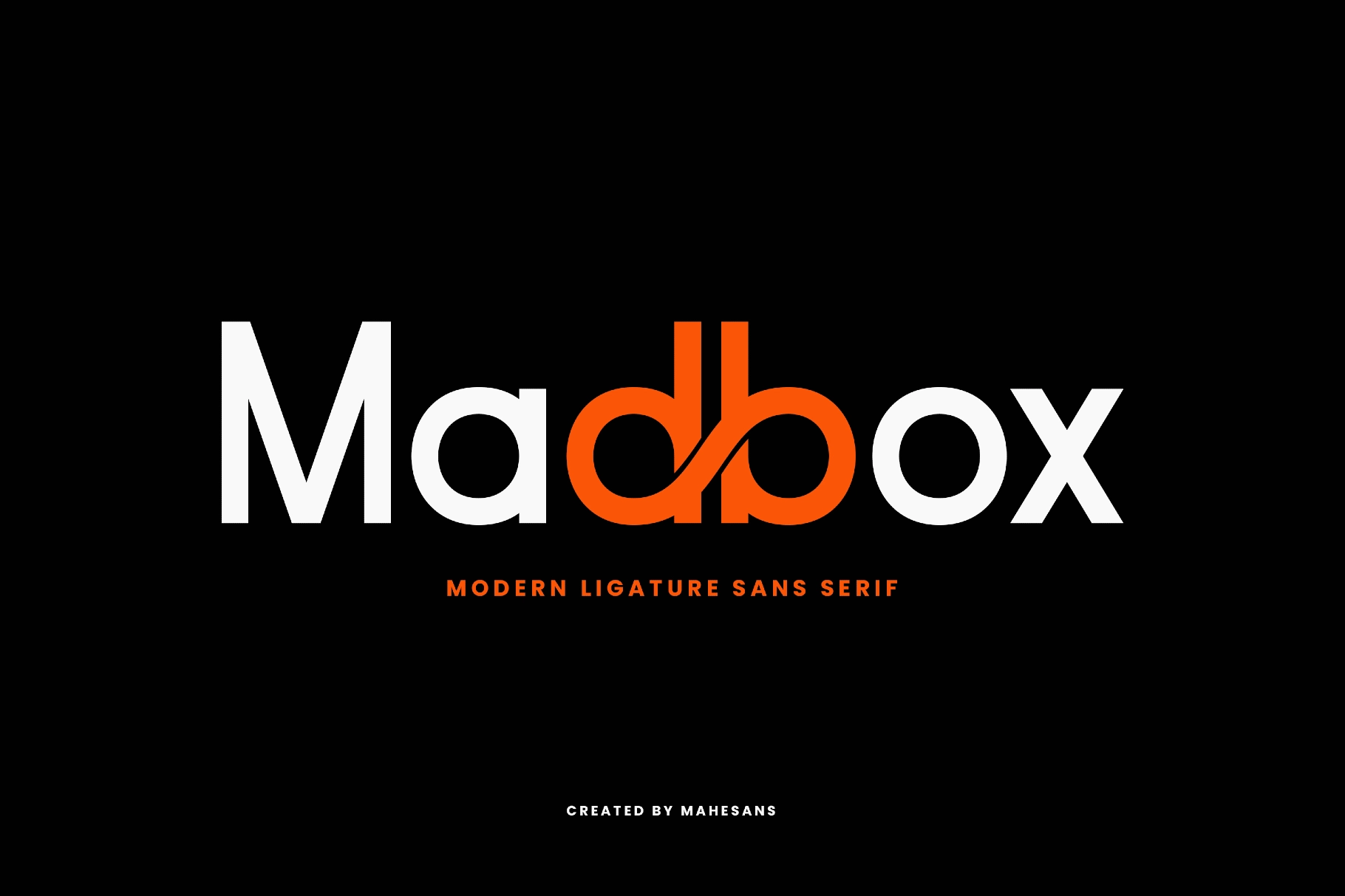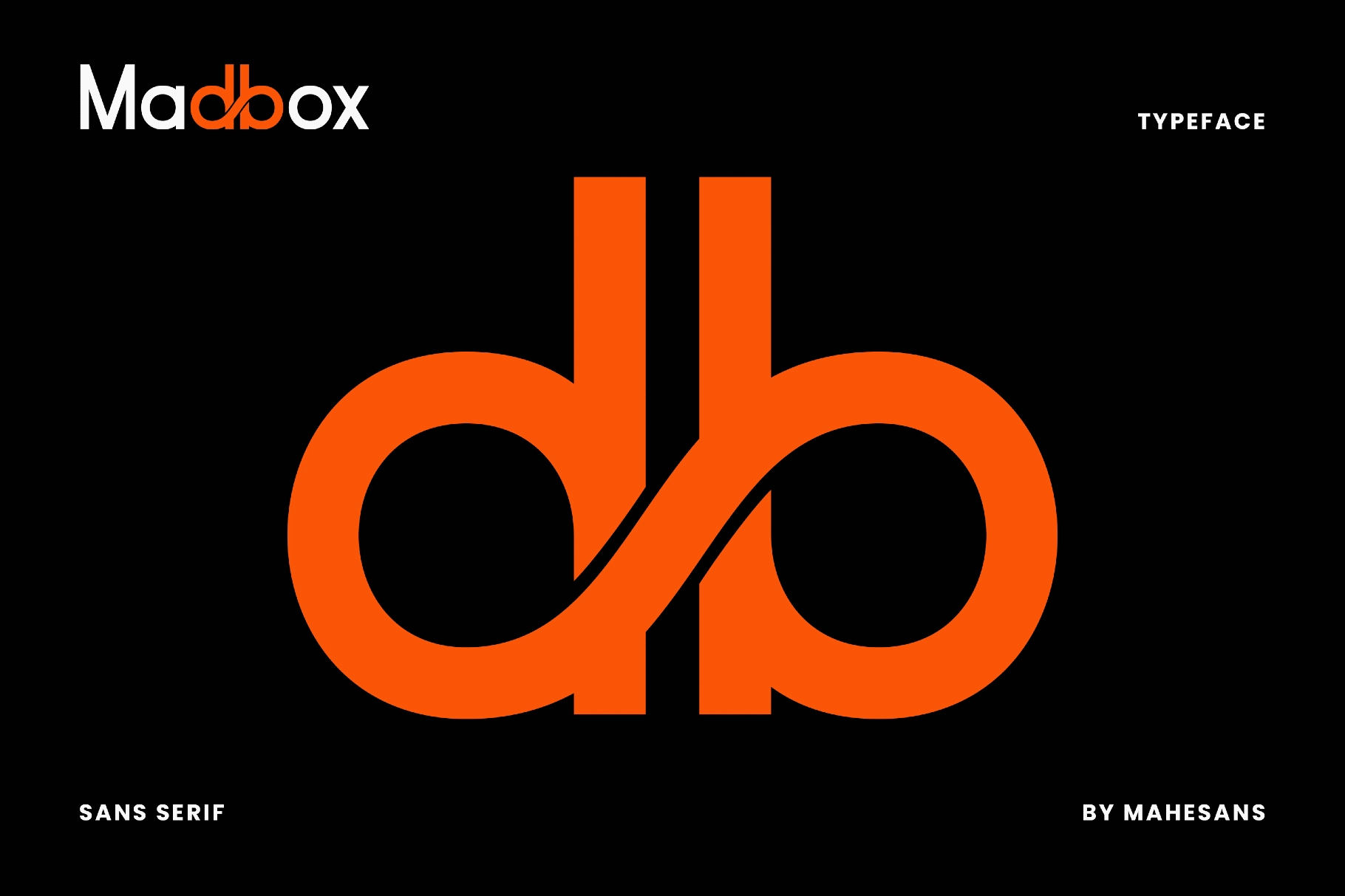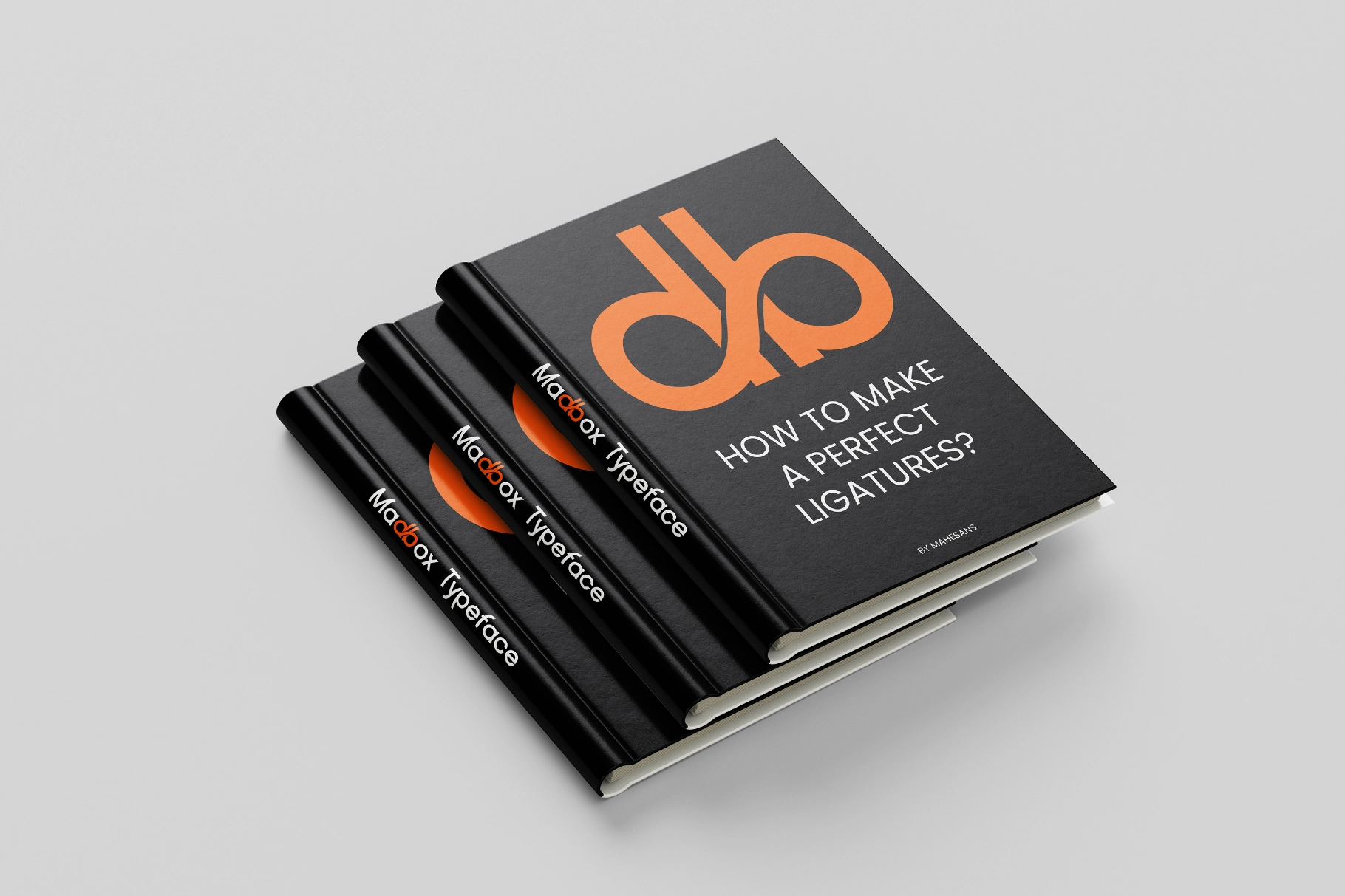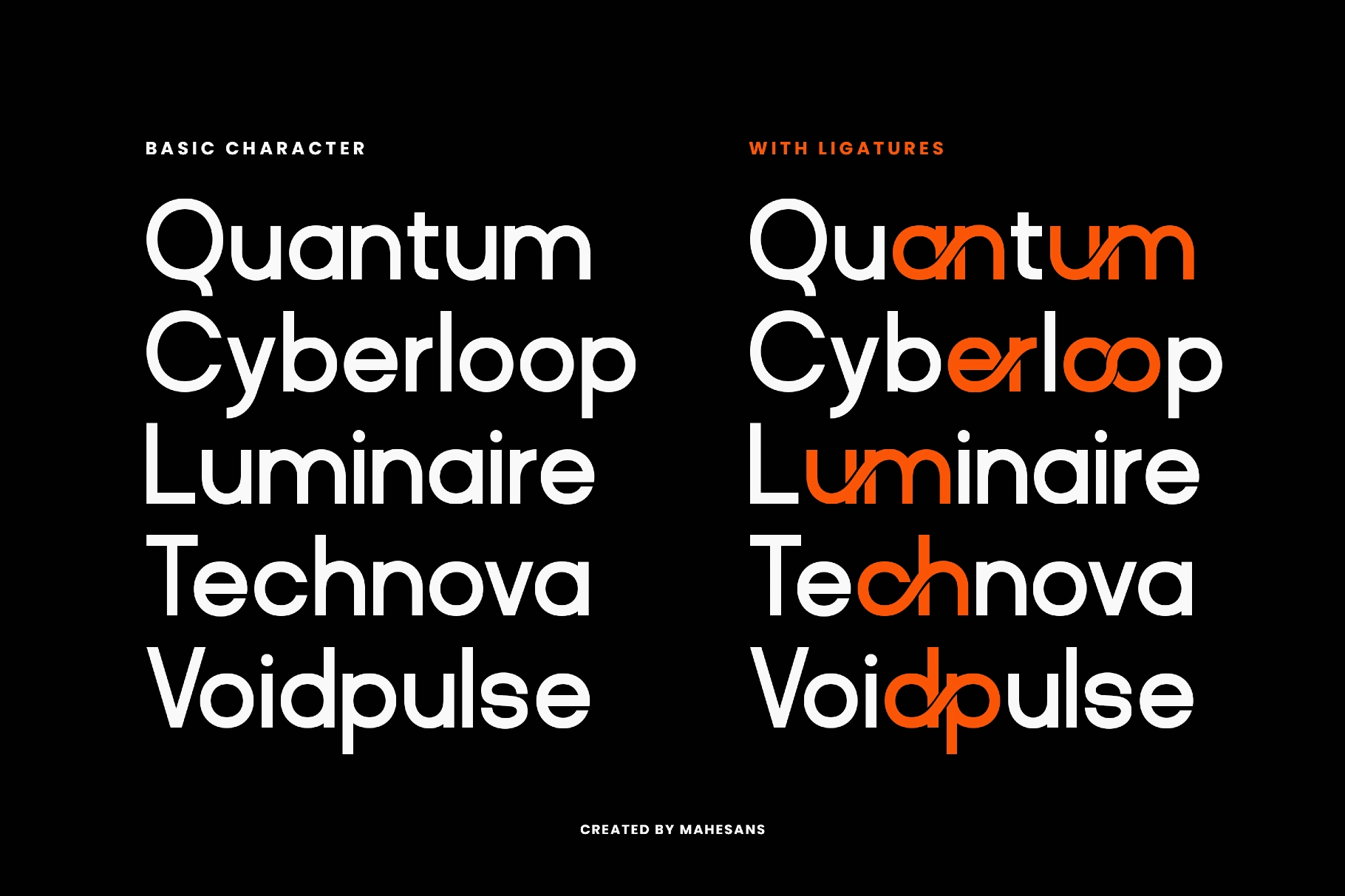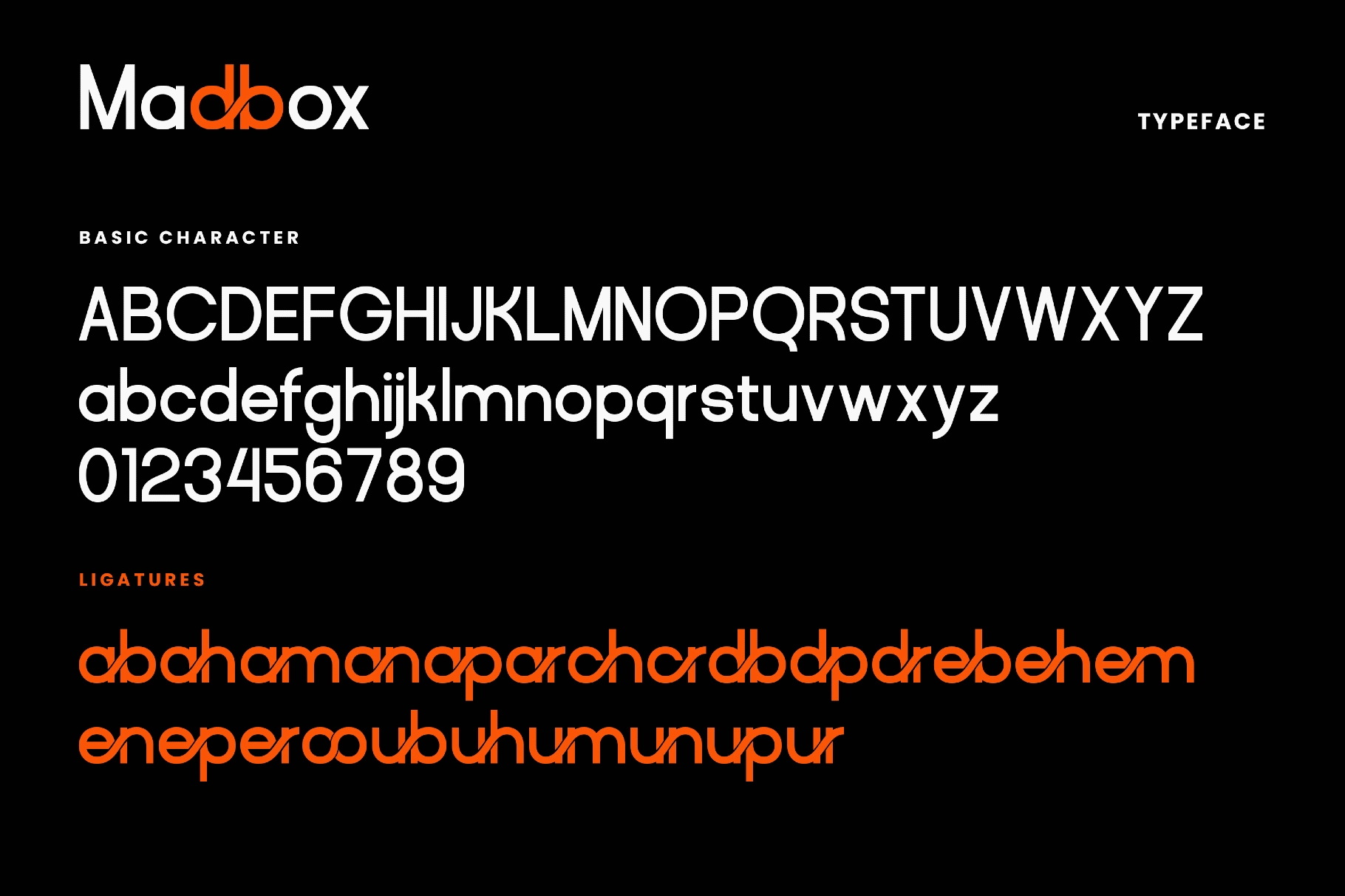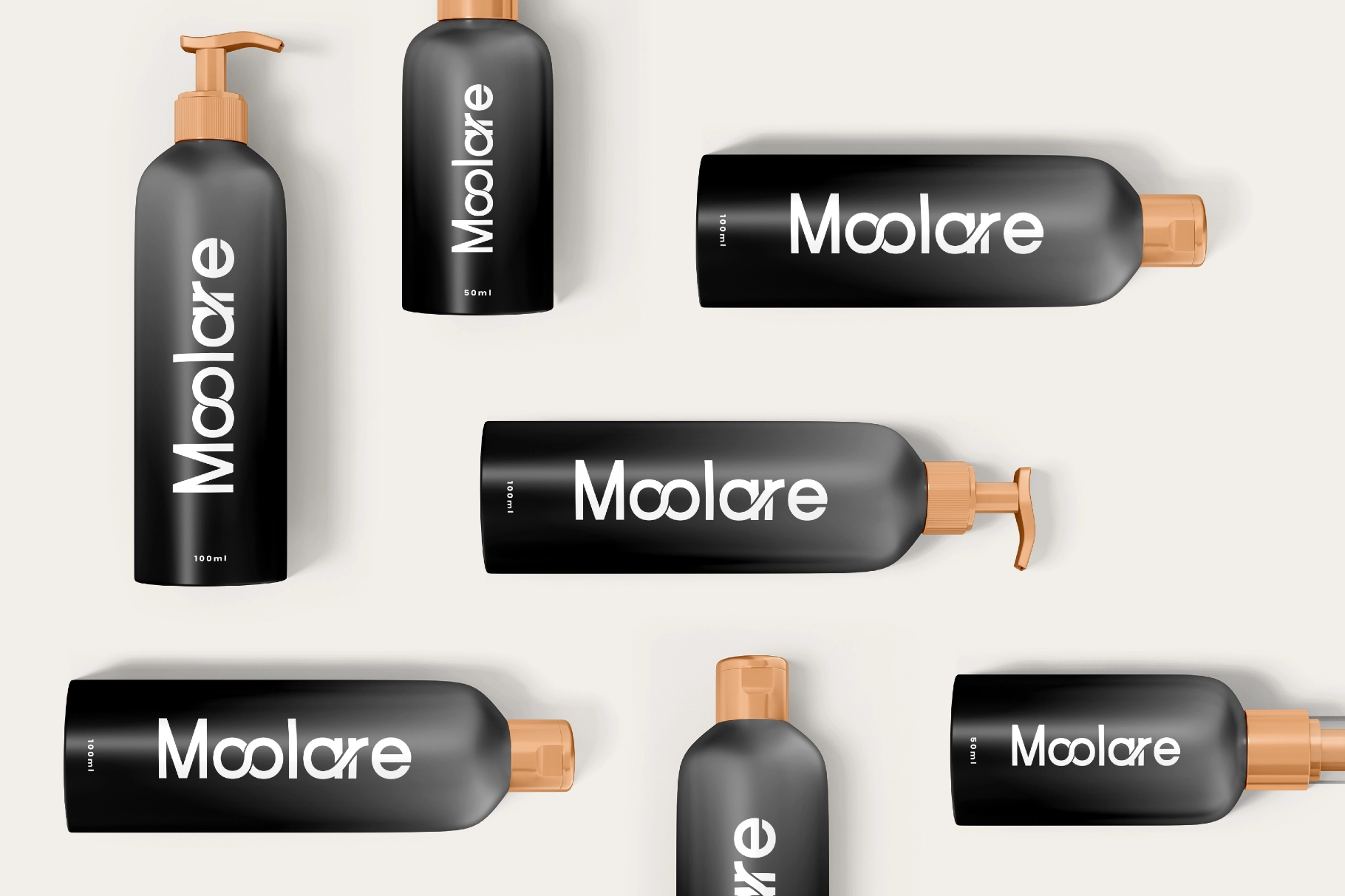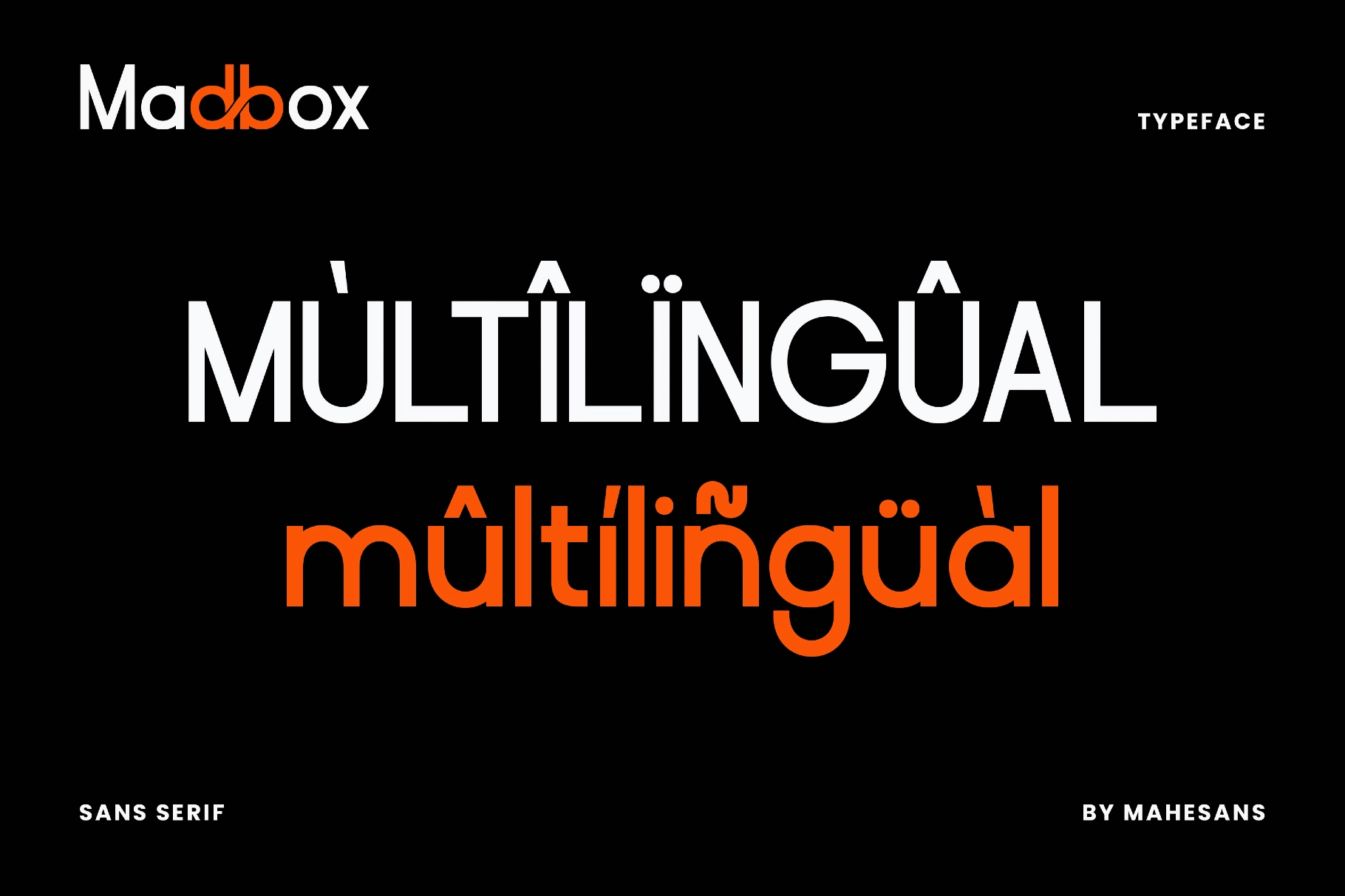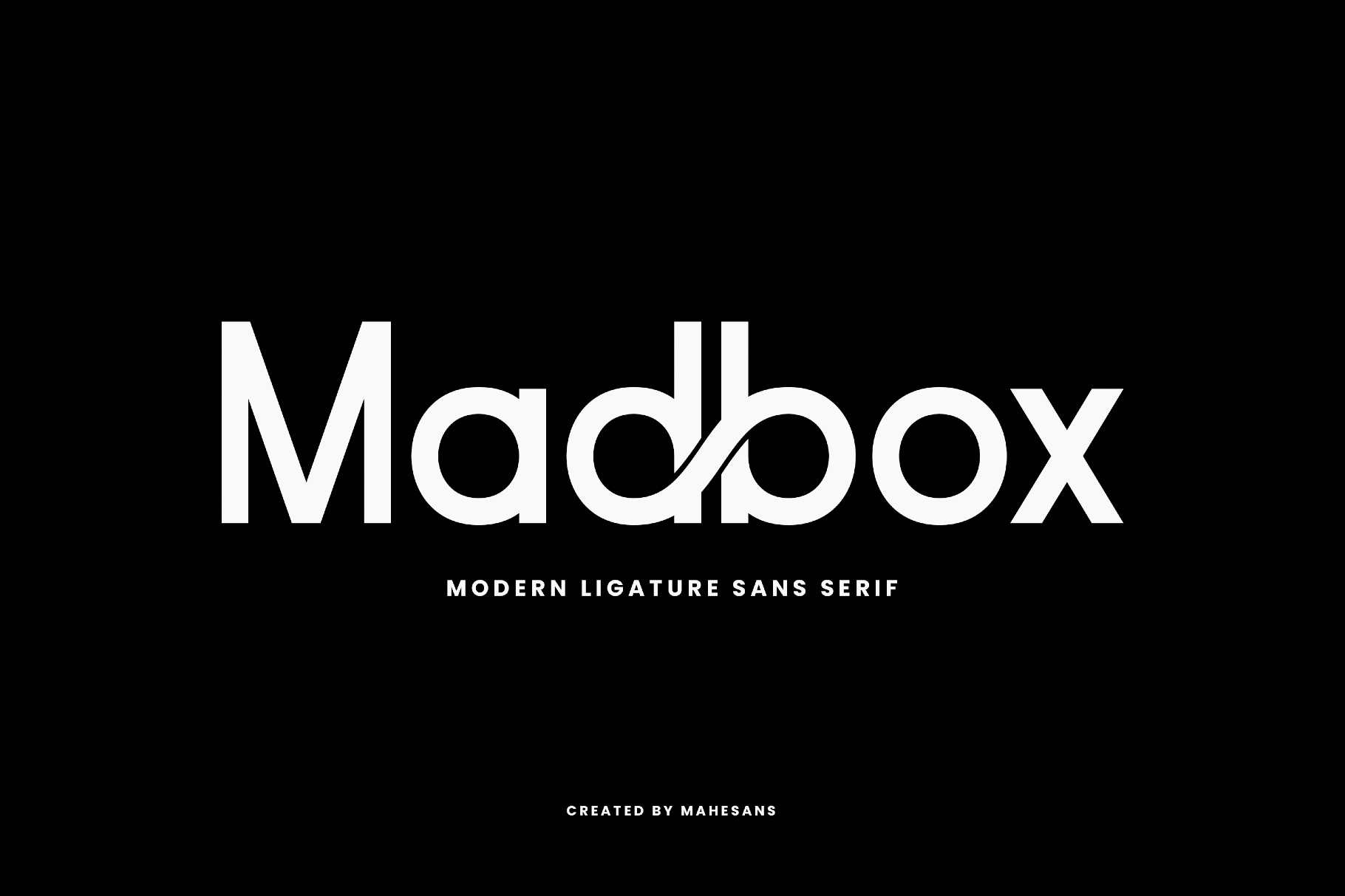
Madbox – Modern Ligature Sans Serif Font
This sans serif typeface has a clean geometric structure, bold weight, and smooth rounded forms with a sharp graphic edge. Custom ligatures add a clever visual hook, giving wordmarks and display text a crisp tech-driven character without trying too hard.
Madbox works well for logos, startup branding, app interfaces, product packaging, poster headlines, album covers, event graphics, editorial titles, merch prints, social media campaigns, website headers, and more. The letterforms are clear at large sizes, while the ligature set brings extra personality to short names, punchy headlines, and identity systems that need a memorable typographic detail.
• Ligatures